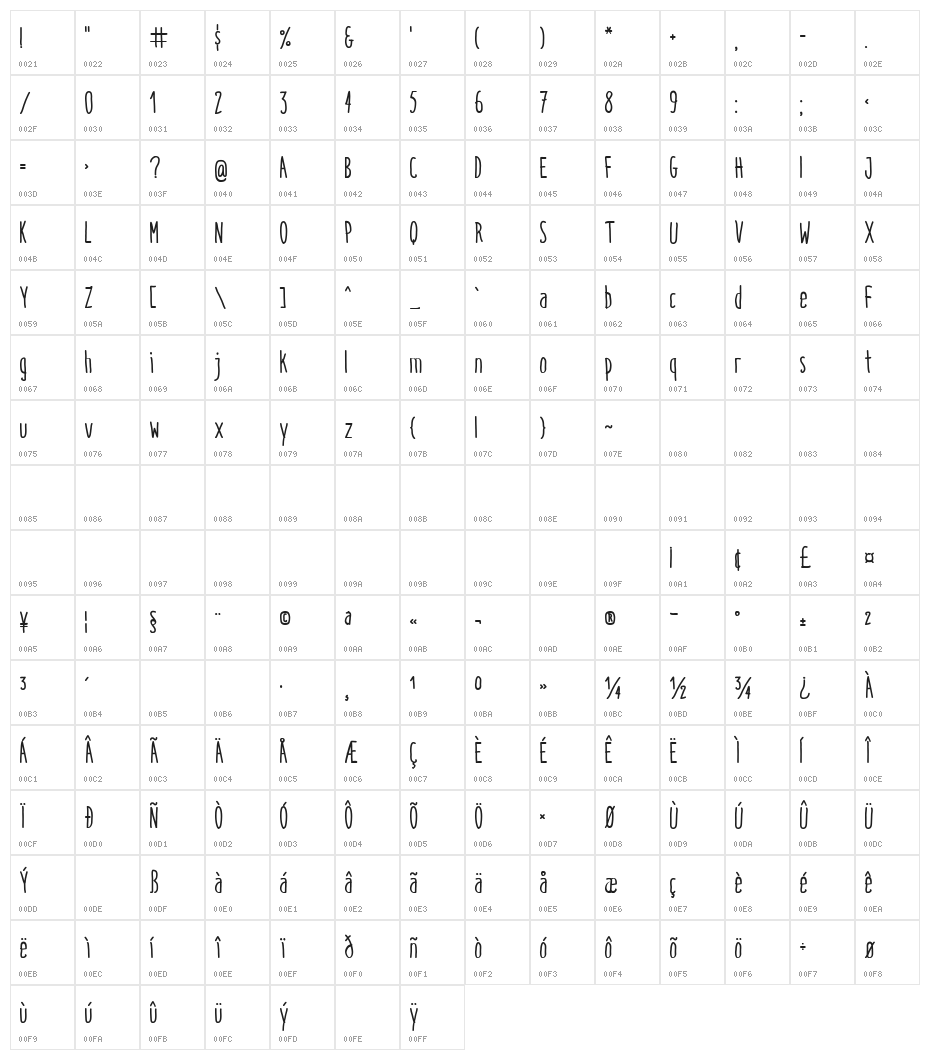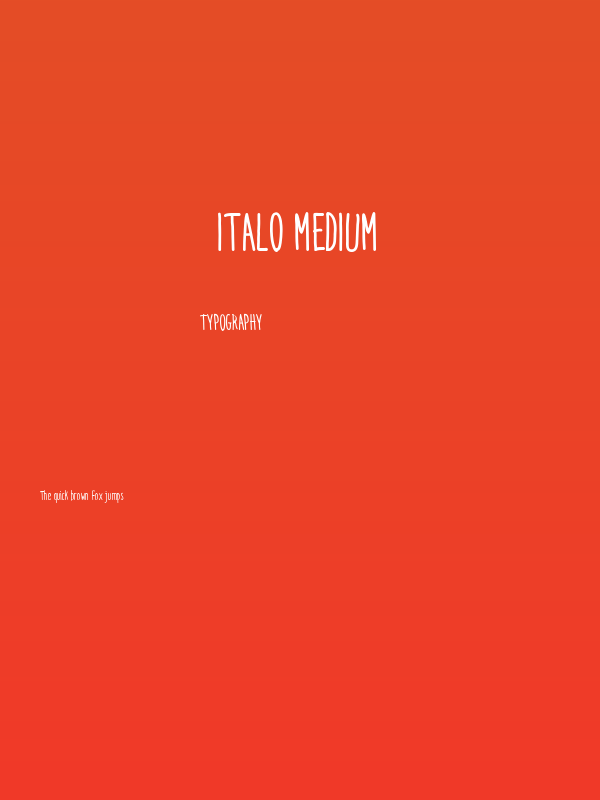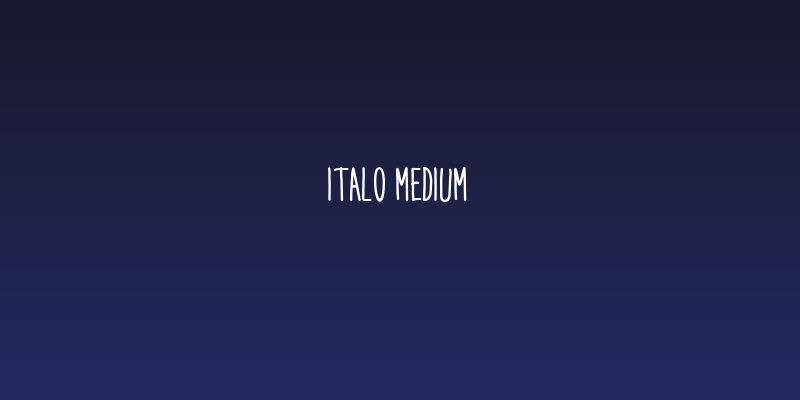
Italo Medium Font
Italo Medium Description
This font features a playful and informal style with elongated, slightly irregular letterforms that give it a hand-drawn appearance. The uppercase and lowercase letters maintain a consistent height, contributing to a uniform look across text. The numbers and special characters are designed to match the quirky, casual feel of the alphabet. This font's unique character is enhanced by its slightly condensed width and medium contrast in stroke thickness, making it stand out while remaining legible.
| Proposed Projects | Ideal for children's books, casual invitations, playful branding, and creative posters. |